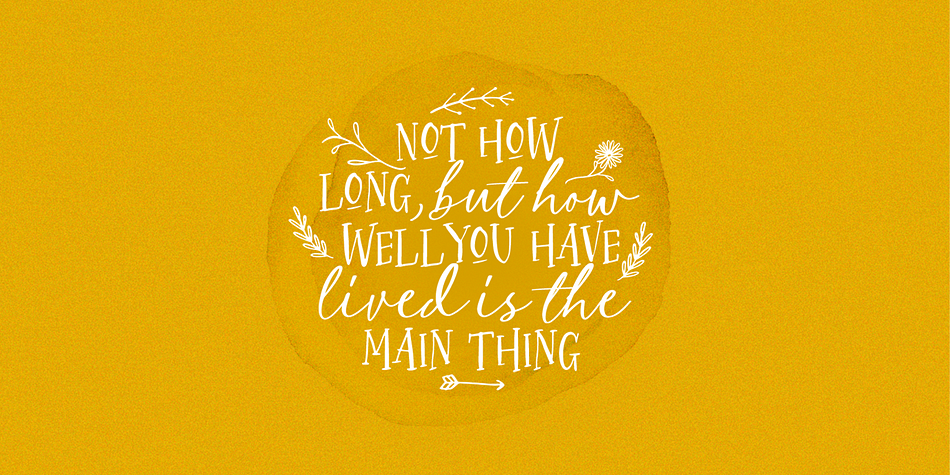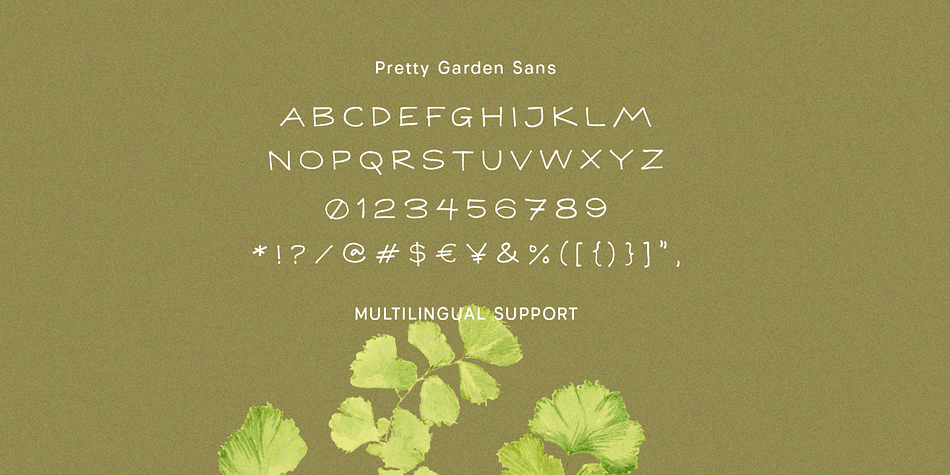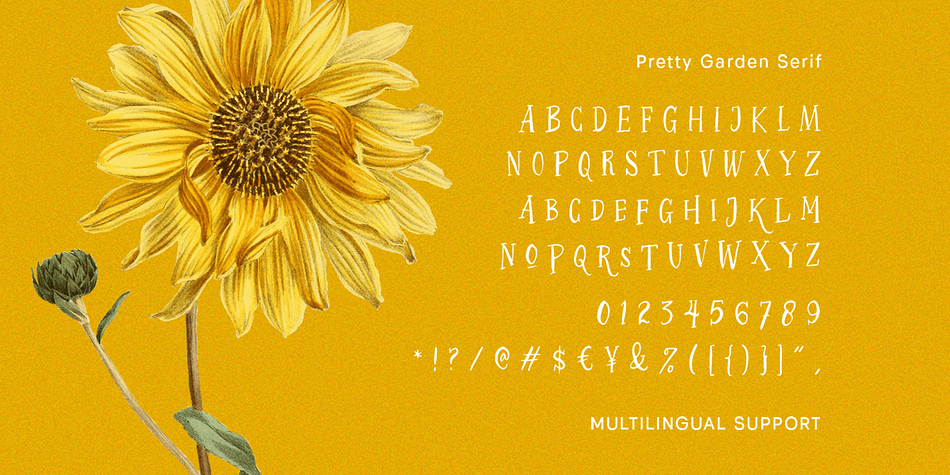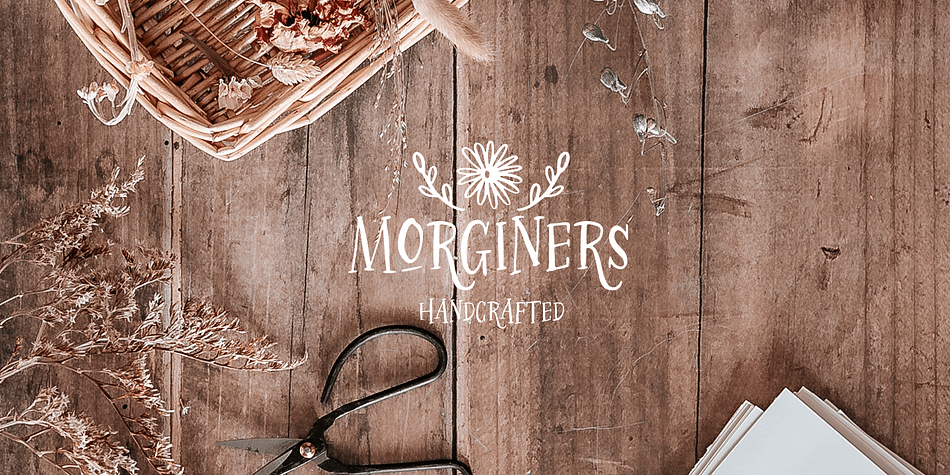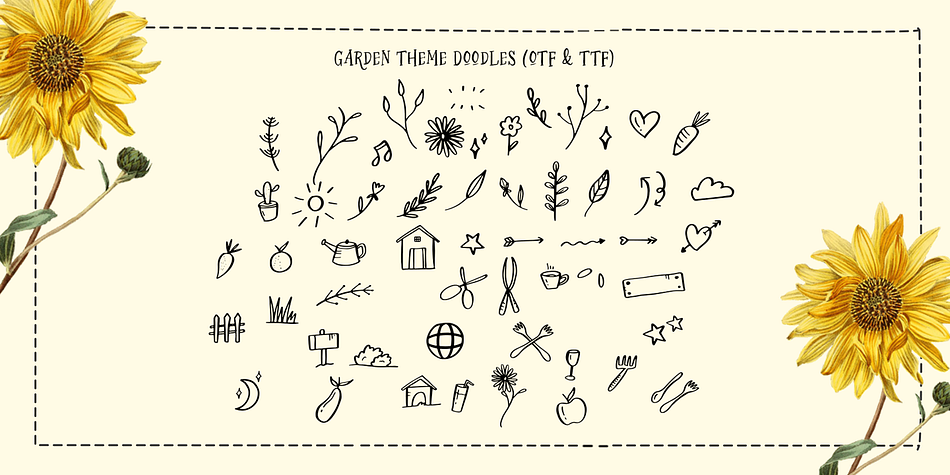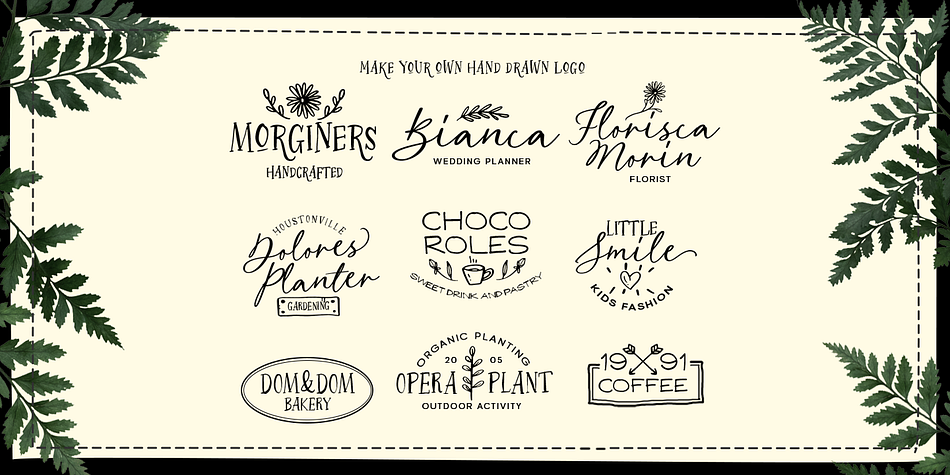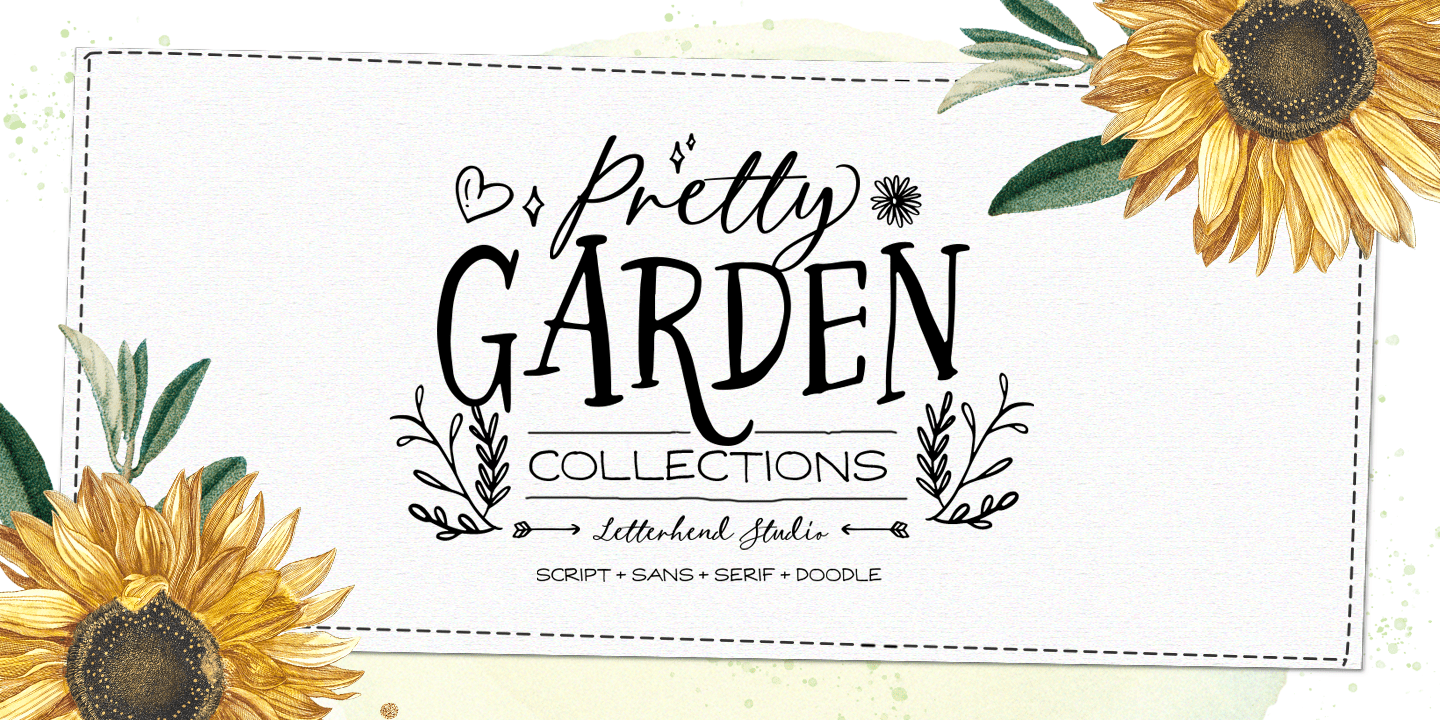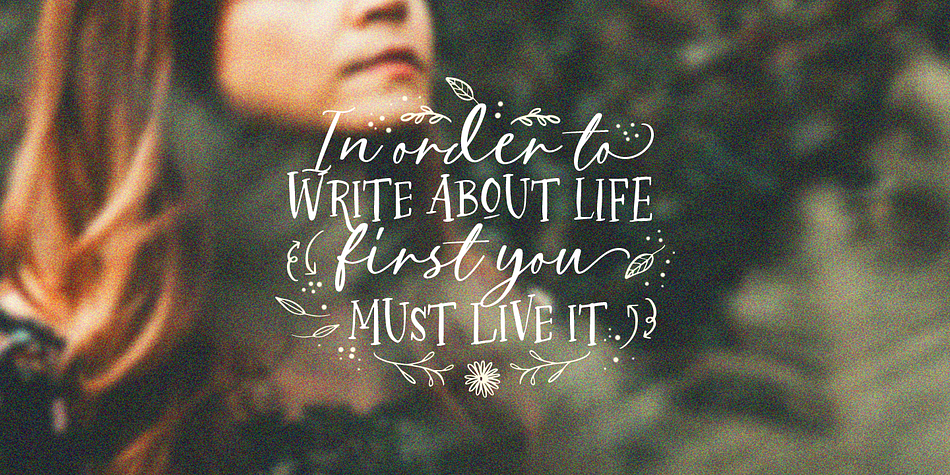
Pretty Garden
Designed by Hendry Juanda, Pretty Garden is a multiple classification font family. This typeface has four styles and was published by Letterhend Studio.
Pretty Garden Collections is a font pack consist of 3 fonts, added with doodle dingbats. These fonts were created based on authentic hand writing with natural signature style. It worked well to combine these three fonts into one lettering. This type of font perfectly made to be applied especially in logo, and the other various formal forms such as invitations, labels, logos, magazines, books, greeting / wedding cards, packaging, fashion, make up, stationery, novels, labels or any type of advertising purpose.
- 3 style font and 1 doodle dingbat